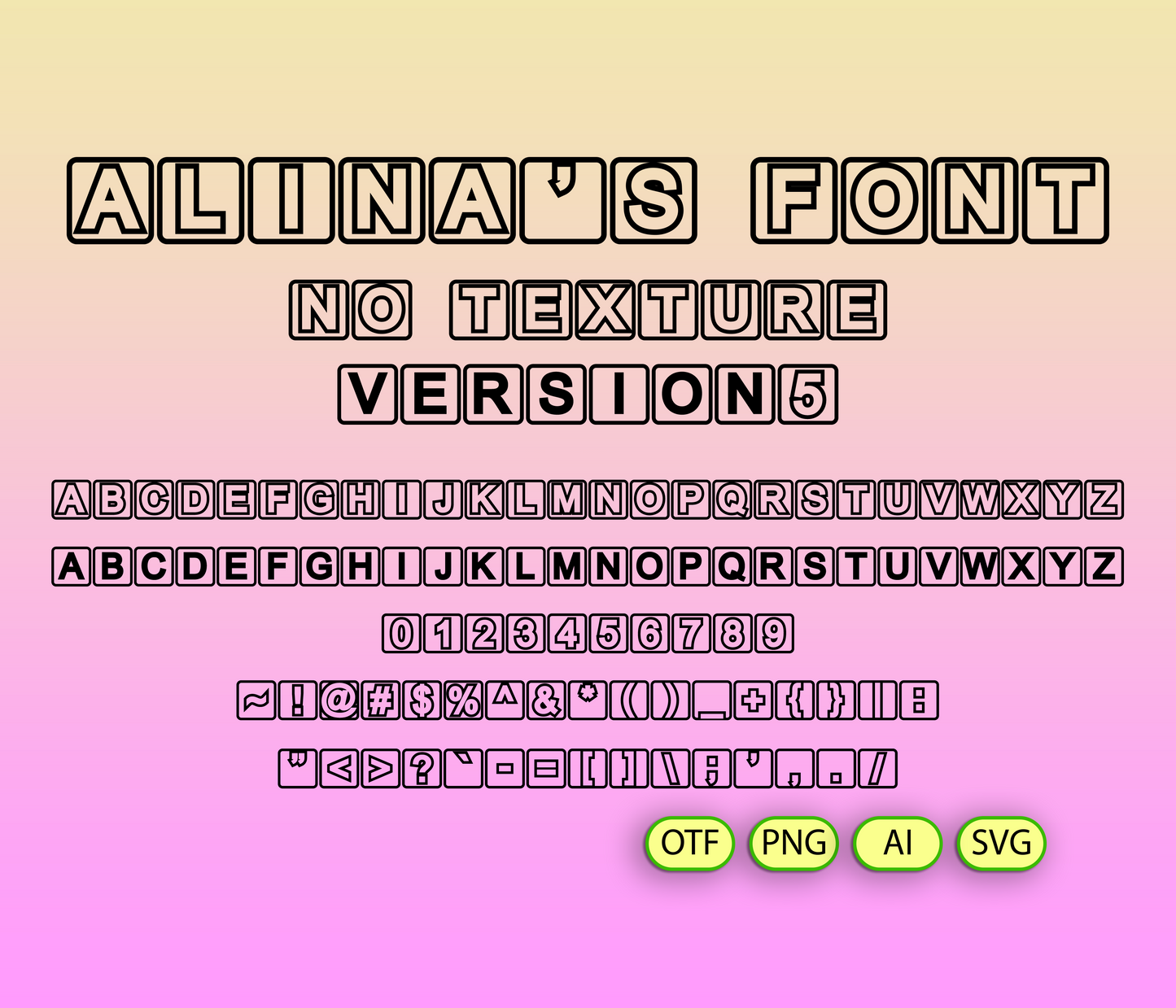
Math Learning Figures Font Clean Edition
Step into the vibrant world of arithmetic exploration with our Math Learning Figures Font Clean Edition, capturing the essence of number comprehension and cheerful digit adventures. Perfect for preschool instructors, children's celebration coordinators, media producers, and design enthusiasts, this font brings the lively, instructive character of numeric personality sagas to your projects. Create memorable invitations, commercial products, or online content with the pedagogical appeal of quantity discovery narratives.
Bold Typography for Teaching Design & Youth Projects
Our Math Learning Figures Font Clean Edition features cheerful, stylized letterforms with polished, unadorned finishes reflecting the world of animated digits and classroom learning atmospheres.
• Event Promotions: Create memorable invitations, displays, and promotional materials for youth celebrations, instructional workshops, and household gatherings that capture the spirit of educational entertainment
• Merchandise Design: Perfect for clothing, decorative prints, removable stickers, and keepsakes that showcase the lively aesthetic of arithmetic instruction themes
• Digital Media: Enhance web platforms, content channels, and communication networks with cheerful header designs and visuals that express the delight of numeric exploration
• Creative Content: Add signature flair to teaching illustrations, digit artwork, and imaginative projects inspired by quantity adventure chronicles
• Personal Projects: Bring instructive vitality to scrapbooks, handmade crafts, and living space decorations inspired by the world of friendly numeric figures
Our font pays tribute to the world of numeric instruction stories and teaching animation, empowering your projects with its lively and instructive character. Whether crafting pedagogical materials, designing youth-oriented products, or adding a cheerful touch to personal projects, this font communicates the spirited essence of quantity entertainment. Ready to inject arithmetic exploration into your creations? This font is your key to memorable, impactful design.